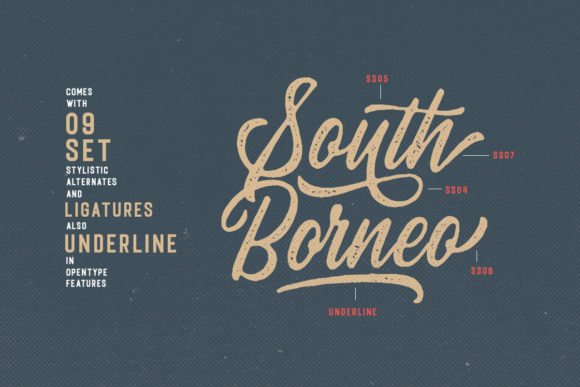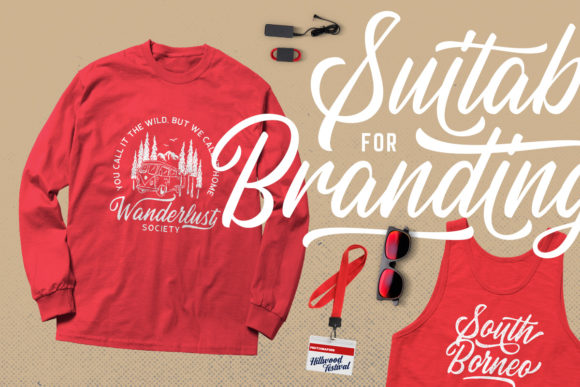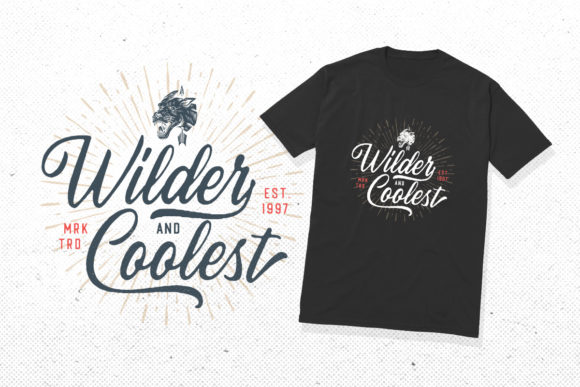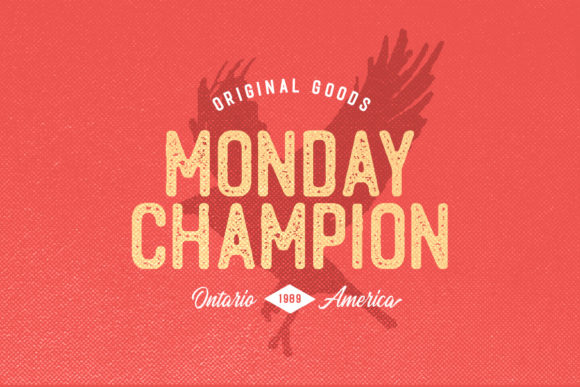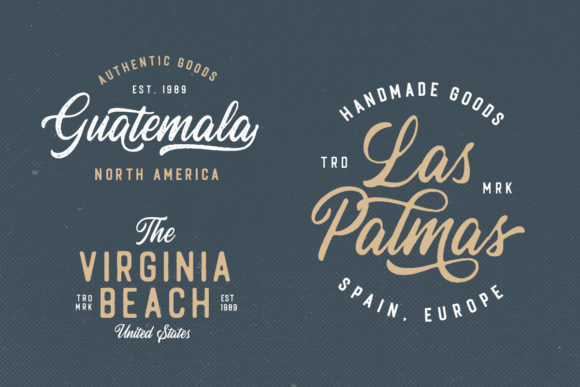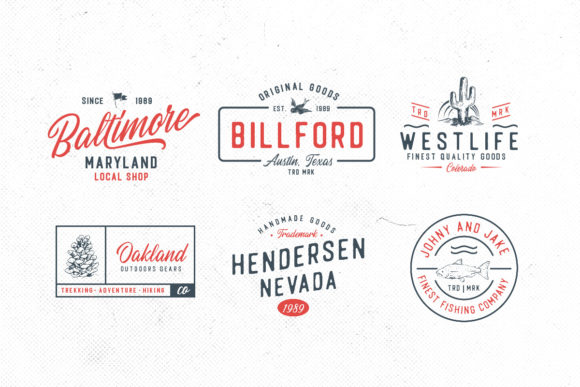
Introducing Autogate Family Font: The Perfect Duo for Creative Projects
Are you a designer or crafter looking for a unique and versatile font duo to elevate your creative projects? Look no further than the Autogate Family Font! This fun and stylish pair of script and sans fonts is designed to be combined perfectly, offering a classic feel that’s ideal for a wide range of applications.
The Autogate Family Font: A Perfect Pairing
The Autogate Family Font consists of two complementary fonts: a beautiful script font and a clean sans font. The script font boasts elegant, cursive lines that add a touch of sophistication to any design, while the sans font provides a modern, crisp contrast that perfectly balances out the script font. When used together, these fonts create a stunning visual effect that’s sure to capture attention.
So, what can you create with the Autogate Family Font? The possibilities are endless! Here are just a few ideas to get you started:
- Logotype: Create a memorable brand identity with a custom logotype that showcases your business’s unique personality.
- Apparel: Design eye-catching t-shirts, hoodies, and other apparel that will make your customers stand out from the crowd.
- Invitations: Create beautiful, one-of-a-kind invitations for weddings, parties, and other special events.
- Branding: Develop a cohesive brand image with the Autogate Family Font, perfect for use on business cards, letterheads, and more.
- Packaging: Add a touch of elegance to your product packaging with custom labels and designs.
- Advertising: Create attention-grabbing ads that showcase your products or services in style.
Why Choose the Autogate Family Font?
With so many fonts to choose from, why should you opt for the Autogate Family Font? Here are just a few reasons why designers and crafters love this font duo:
- Unique and Versatile: The Autogate Family Font offers a fresh, unique look that’s perfect for a wide range of creative projects.
- Easy to Read: The sans font is clean and easy to read, making it perfect for body text and other applications where legibility is key.
- Highly Customizable: With two complementary fonts to choose from, you can mix and match to create a look that’s all your own.
- Classic Feel: The Autogate Family Font has a timeless, classic feel that’s perfect for designers and crafters who want to create elegant, sophisticated designs.
Tips for Using the Autogate Family Font
Ready to get started with the Autogate Family Font? Here are a few tips to help you make the most of this amazing font duo:
- Experiment with Font Combinations: Try pairing the script and sans fonts in different ways to create a unique look that’s all your own.
- Play with Size and Color: Don’t be afraid to experiment with different font sizes and colors to add visual interest to your designs.
- Use it for Headings and Body Text: The Autogate Family Font is perfect for use in headings and body text, making it a great choice for a wide range of applications.
The Autogate Family Font is a versatile and stylish font duo that’s perfect for designers and crafters who want to create unique, eye-catching designs. With its classic feel, easy readability, and endless creative possibilities, this font duo is sure to become a favorite in your design toolkit. So why wait? Download the Autogate Family Font today and start creating stunning designs that will leave a lasting impression!